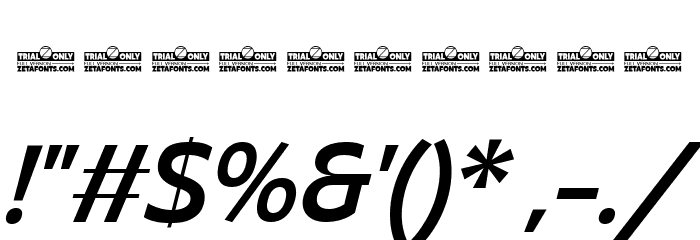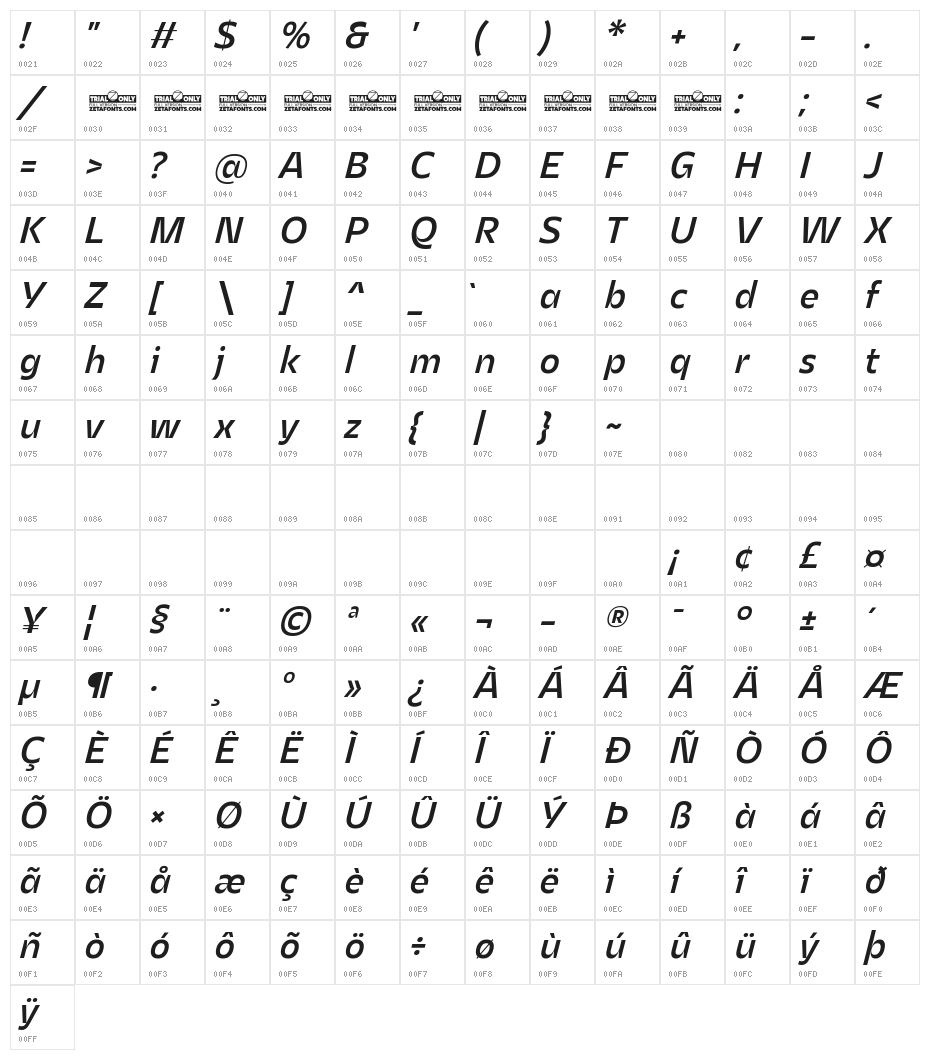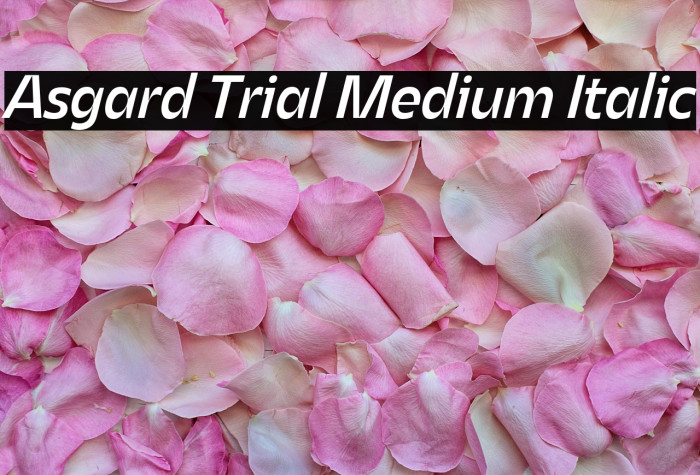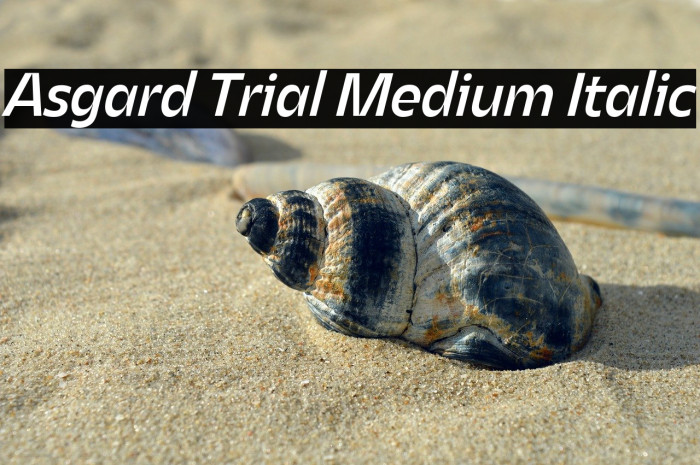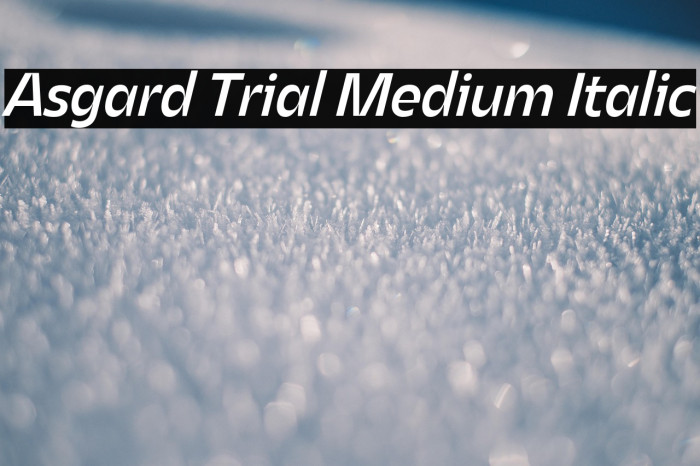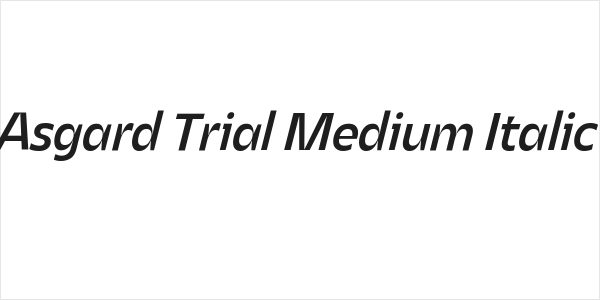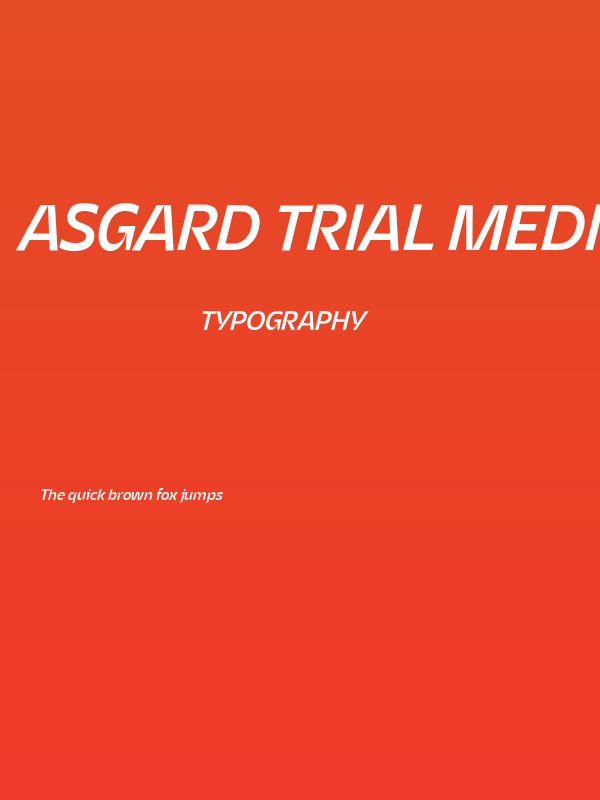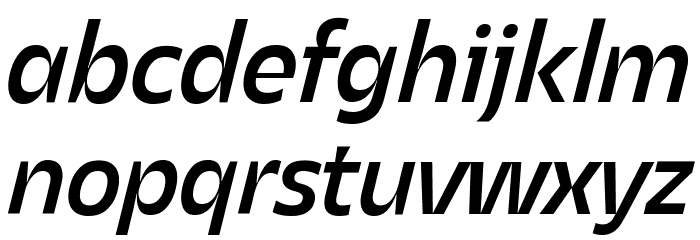
Asgard Trial Medium Italic Font
Asgard Trial Medium Italic Description
This font exhibits a sleek, modern design with a slight italic slant, giving it a dynamic and forward-moving appearance. The characters are well-proportioned with a consistent stroke width, contributing to its readability and versatility. The uppercase letters are bold and commanding, while the lowercase letters maintain a smooth and cohesive flow. The numerals are clear and distinct, matching the overall style of the alphabet. Special characters are included, maintaining the same stylistic integrity. This font's clean lines and contemporary feel make it suitable for a variety of design applications.